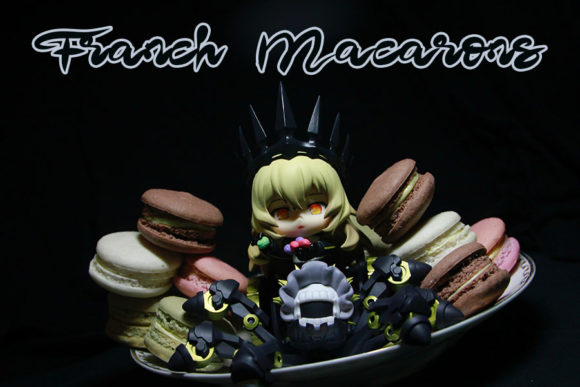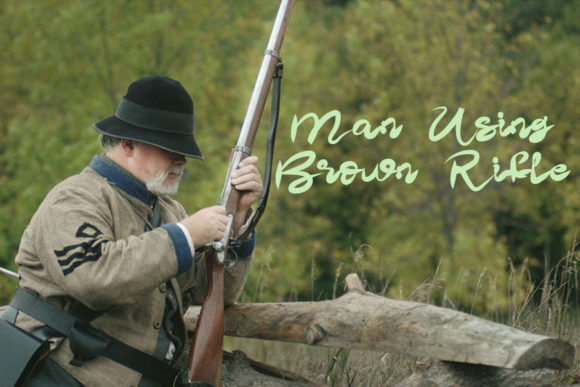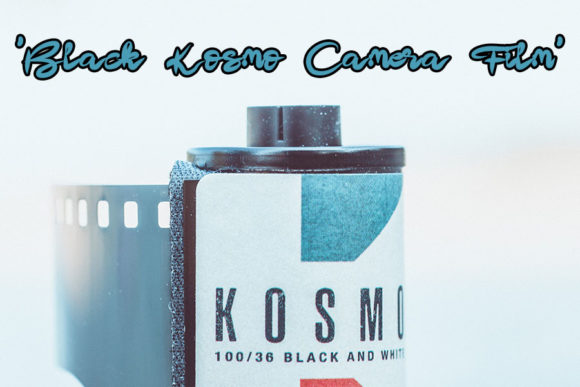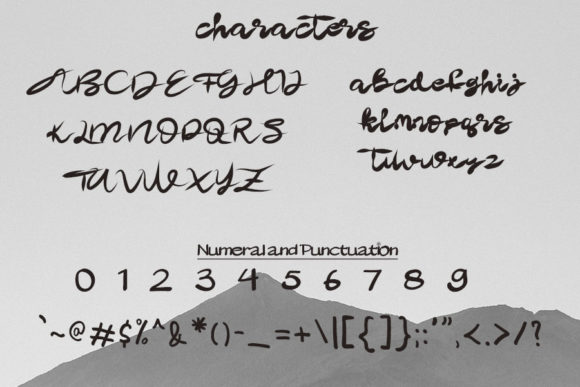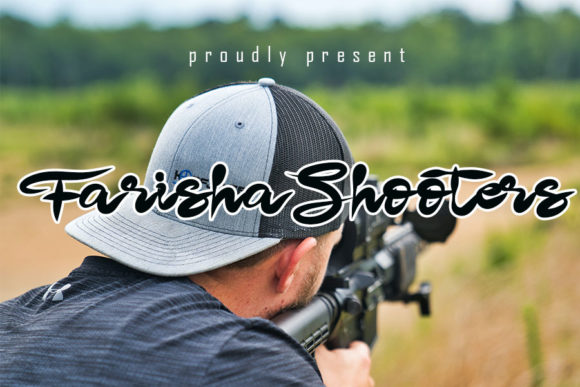
Introducing Farisha Shooter Font: Elevate Your Creativity with this Unique Handwritten Font
Are you tired of using the same old fonts for your creative projects? Look no further! Farisha Shooter Font is an incredibly unique handwritten font that is sure to take your designs to the next level. Masterfully designed to become a true favorite, this font has the potential to bring each of your creative ideas to the highest level.
What Makes Farisha Shooter Font So Special?
Farisha Shooter Font is a one-of-a-kind handwritten font that boasts a distinctive and charming style. Its unique character set and carefully crafted letterforms make it perfect for a wide range of creative projects, from crafting and scrapbooking to branding and advertising. Whether you’re a designer, crafter, or DIY enthusiast, this font is sure to inspire your next project.
Key Features of Farisha Shooter Font
• Unique Handwritten Style: Farisha Shooter Font features a beautiful, handwritten style that is both elegant and playful.
• Extensive Character Set: This font includes a comprehensive character set, complete with uppercase and lowercase letters, numbers, and punctuation marks.
• Easy to Read: Despite its unique style, Farisha Shooter Font is surprisingly easy to read, making it perfect for use in a variety of applications.
• Highly Versatile: This font can be used for a wide range of creative projects, from digital designs to print materials.
How to Use Farisha Shooter Font in Your Designs
Farisha Shooter Font is incredibly easy to use and can be incorporated into your designs in a variety of ways. Here are a few ideas to get you started:
• Crafting and Scrapbooking: Use Farisha Shooter Font to add a personal touch to your scrapbook pages, cards, and other craft projects.
• Branding and Advertising: This font is perfect for creating unique and eye-catching logos, ads, and marketing materials.
• Digital Designs: Use Farisha Shooter Font to add a touch of personality to your digital designs, including social media graphics, blog posts, and website headers.
Tips for Getting the Most Out of Farisha Shooter Font
To get the most out of Farisha Shooter Font, here are a few tips to keep in mind:
• Experiment with Different Sizes and Colors: Don’t be afraid to try out different sizes and colors to see what works best for your design.
• Pair it with Other Fonts: Farisha Shooter Font pairs well with a variety of other fonts, so don’t be afraid to get creative and try out different combinations.
• Use it to Add Emphasis: This font is perfect for adding emphasis to key words or phrases in your design.
In conclusion, Farisha Shooter Font is an incredibly unique and versatile handwritten font that is sure to become a favorite among designers and crafters. With its distinctive style, extensive character set, and ease of use, this font has the potential to bring each of your creative ideas to the highest level. So why wait? Download Farisha Shooter Font today and start elevating your designs!